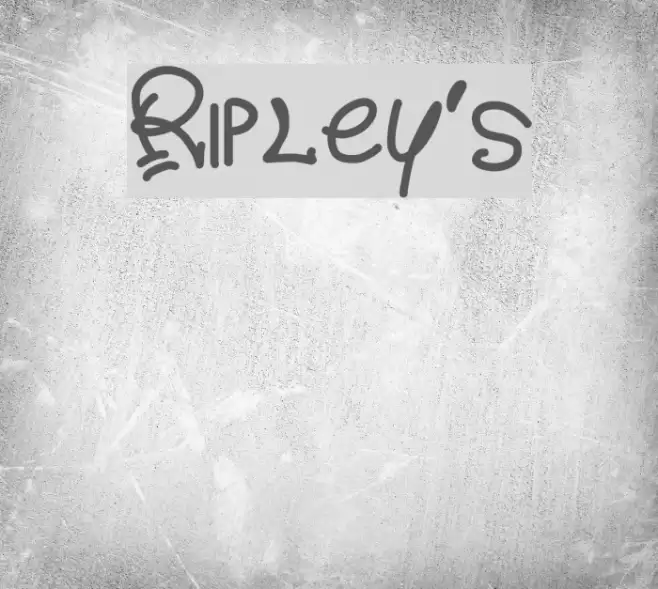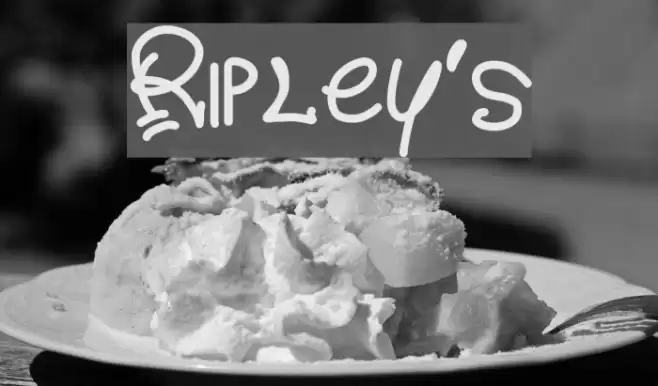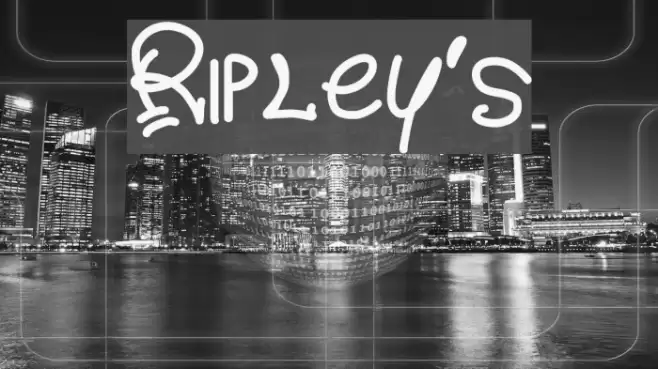
Ripley's Font
Ripley's Description
This font features a playful and quirky design, characterized by its irregular strokes and whimsical curves. The letters have a hand-drawn appearance, with varying line thickness that adds a dynamic and lively feel. The uppercase and lowercase letters maintain a consistent style, with some characters displaying unique embellishments, such as loops and swirls. The numbers and special characters follow the same playful aesthetic, making the font suitable for creative and informal applications.
A playful, hand-drawn font with whimsical curves and irregular strokes from Uncategorized fonts.
- Proposed Projects: Ideal for children's books, comic strips, playful branding, and creative posters.
- Overall Style: Playful